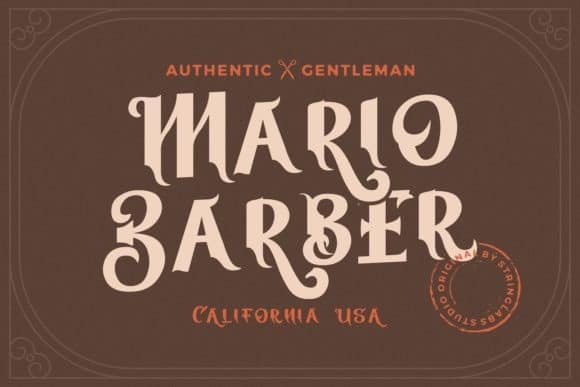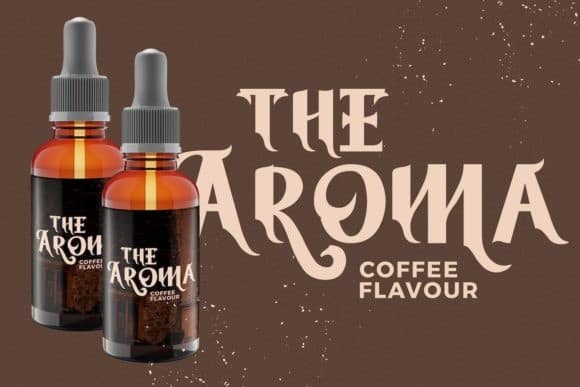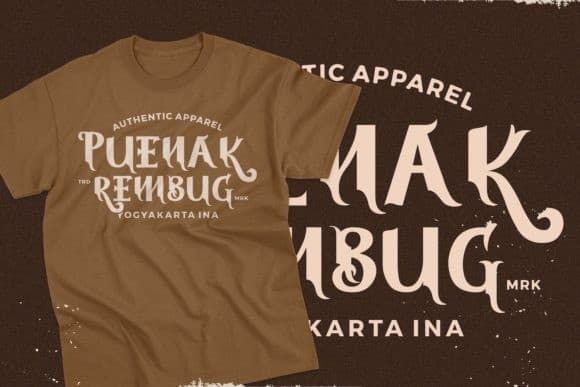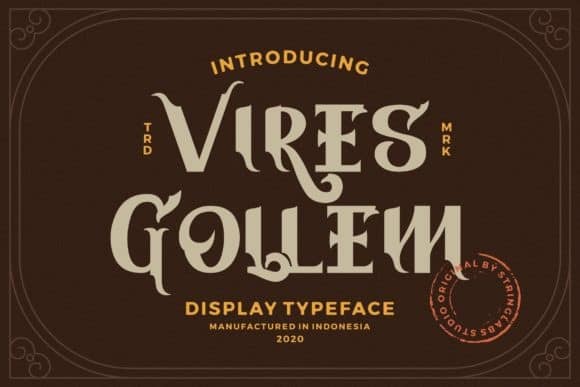
Vires Gollem Display Font is a Bold elegant modern vintage with upper and lowercase feel nice balanced curves. It’s designed and shared by StringLabs. This font is a unique and bold display font. Get inspired by its incredibly versatile style and use it to create spectacular designs! Its wide range of stylistic alternates allows versatile design options and works perfectly for headlines, logos, posters, packaging, T-shirts, postcards and much more.